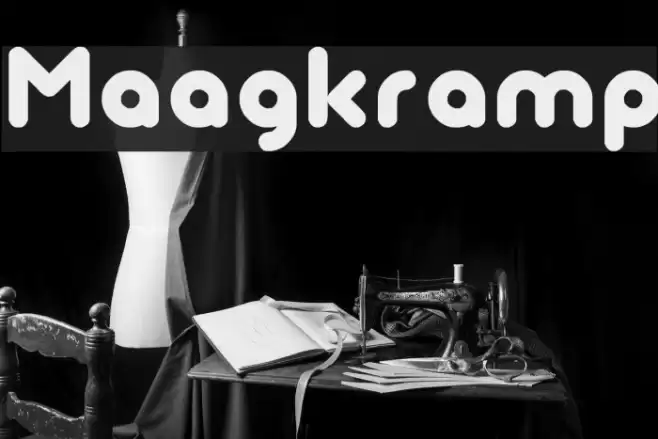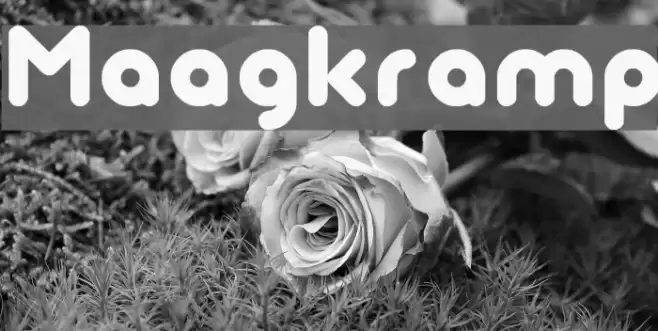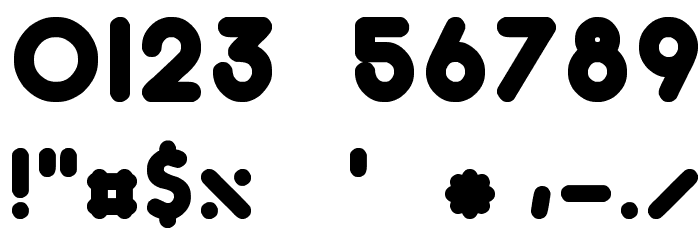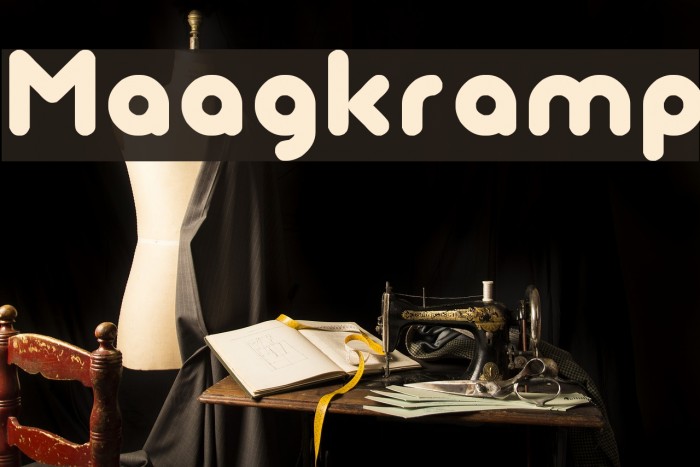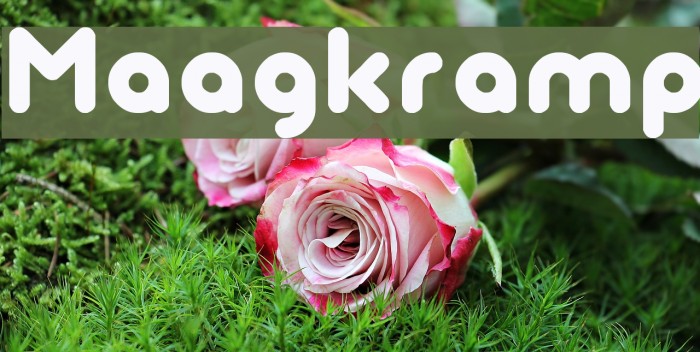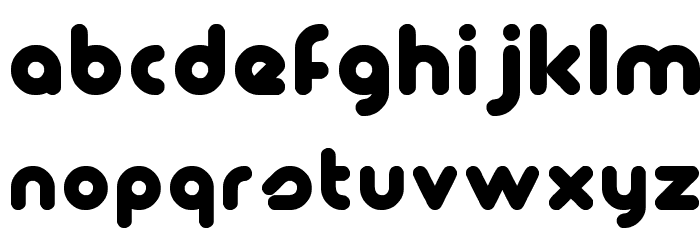
Maagkramp Font
Maagkramp Description
This font features a bold and playful design with rounded edges, giving it a friendly and approachable appearance. The characters are uniformly thick, contributing to a consistent and cohesive look across all letters and numbers. The style is reminiscent of retro or vintage aesthetics, yet it maintains a modern touch with its clean lines and simplicity. The font is highly legible, making it suitable for various applications where readability is essential. Its unique character shapes, such as the rounded 'a' and 'g', add a distinctive charm that can enhance creative projects.
A bold, playful font with rounded edges and a retro-modern style from Uncategorized fonts.
- Proposed Projects: Ideal for children's books, playful branding, posters, and creative digital content.